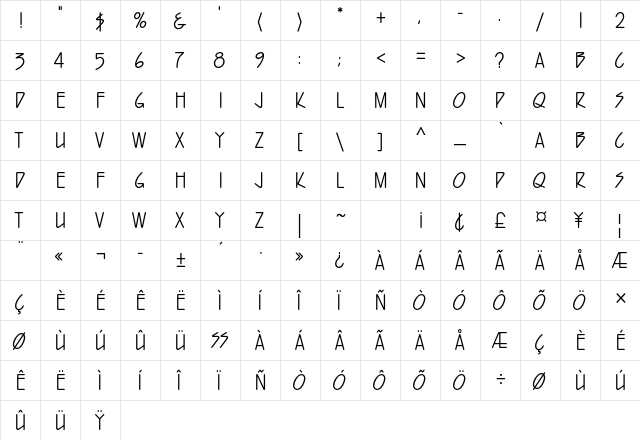
Harvey Std Regular
| Designer | Dale R. Kramer |
Design Context for Harvey Std Typeface
Harvey Std takes a measured approach to typography — its balanced proportions and neutral character make it a reliable workhorse for both digital and print work.